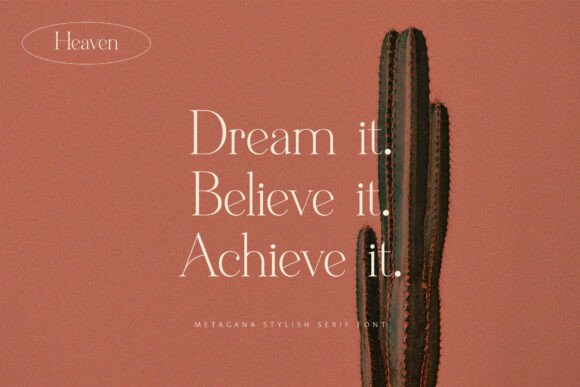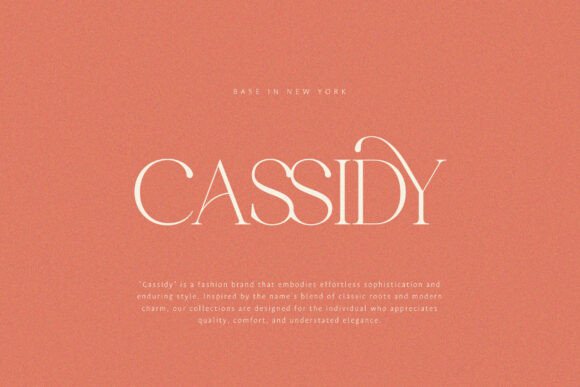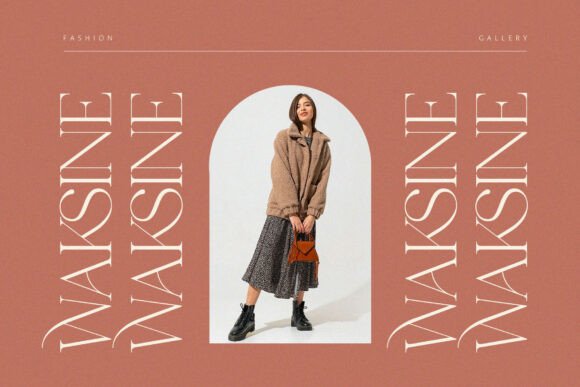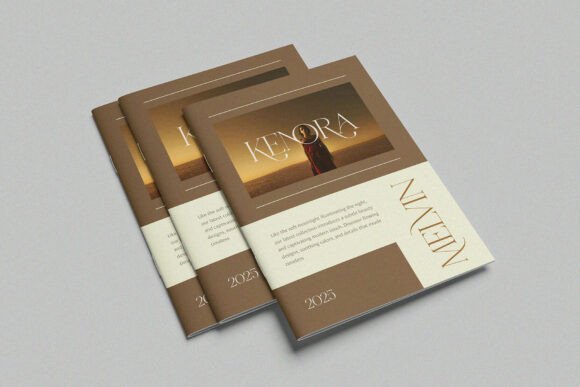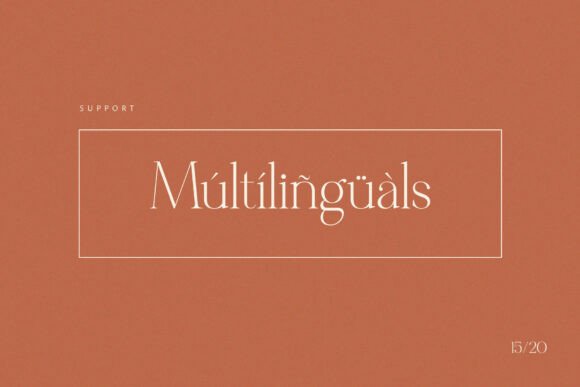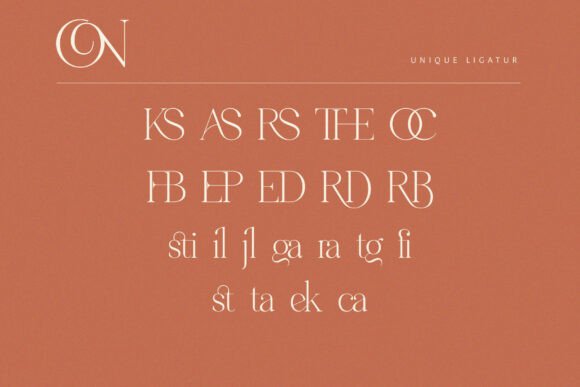
Introduction to Metagana Font Font
Fonts play a crucial role in design, and the Metagana Font font is a typeface that brings both character and versatility to any project. Whether you’re working on a branding project, a website, or a print design, the Metagana Font font offers a unique style that can elevate your work.
Metagana is a sophisticated modern display serif font that fuses contemporary minimalism with elegant detail.
With its clean lines, sharp serifs, and refined letterforms, Metagana is ideal for upscale branding, editorial layouts, fashion lookbooks, and modern logo designs This typeface brings a polished and confident tone to any creative project, standing out with a timeless yet trend-forward appeal.
Key Features of Metagana Font Font
Why Choose Metagana Font Font?
The Metagana Font font is more than just a typeface – it’s a design tool that helps you communicate your message with style and clarity. Its unique character set and versatile design make it suitable for a wide range of applications, from elegant invitations to bold headlines.
With its carefully crafted letterforms and balanced proportions, the Metagana Font font ensures readability and visual appeal across all mediums.
What makes Metagana Font font special?
The Metagana Font font stands out with its unique design, exceptional readability, and versatility across various design applications.